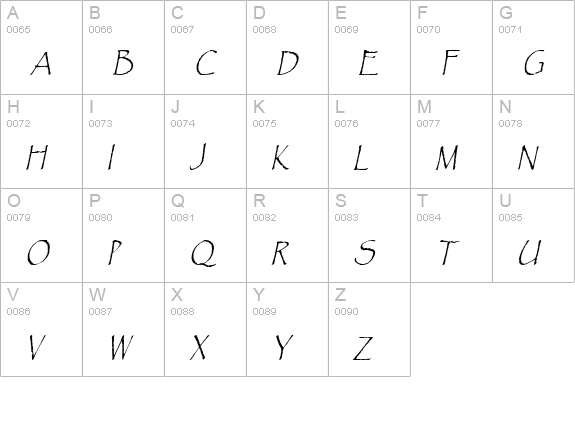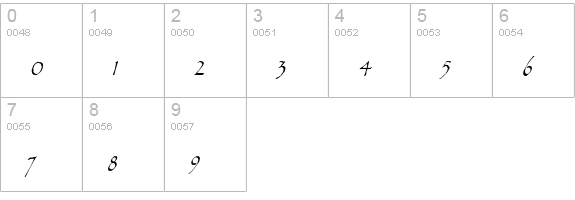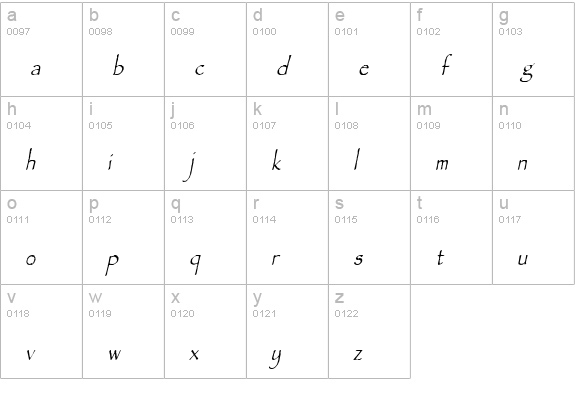
Chalk-Condensed Italic Font Details
Chalk-Condensed Italic is a distinctive, condensed-width, italic variant in the Chalk typeface family \xE2\x80\x94 well suited to design and typography projects.
Chalk-Condensed Italic font is a unique and stylish typeface that exudes a sense of creativity and sophistication. Its sleek and modern design makes it perfect for a variety of design projects, from branding to packaging to advertising. The italic style adds a touch of elegance and flair to any text, making it stand out and command attention. This font is not only visually appealing, but also highly versatile, suitable for both digital and print applications. Whether you are creating a logo, poster, website, or any other design project, Chalk-Condensed Italic font will add a touch of class and professionalism. The best part is that this font is free to download at FontsMarket.com. Simply visit the website and get access to this amazing typeface without any cost. Don't miss out on the opportunity to elevate your designs with the Chalk-Condensed Italic font today!